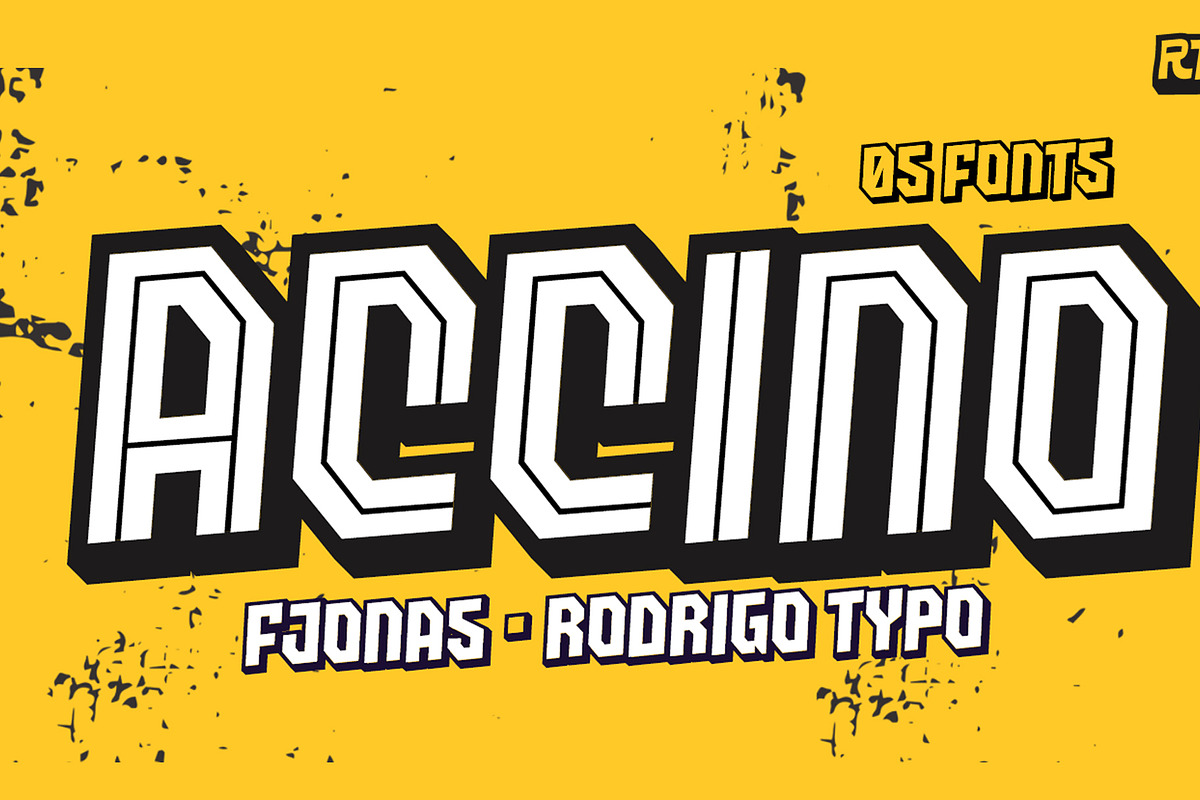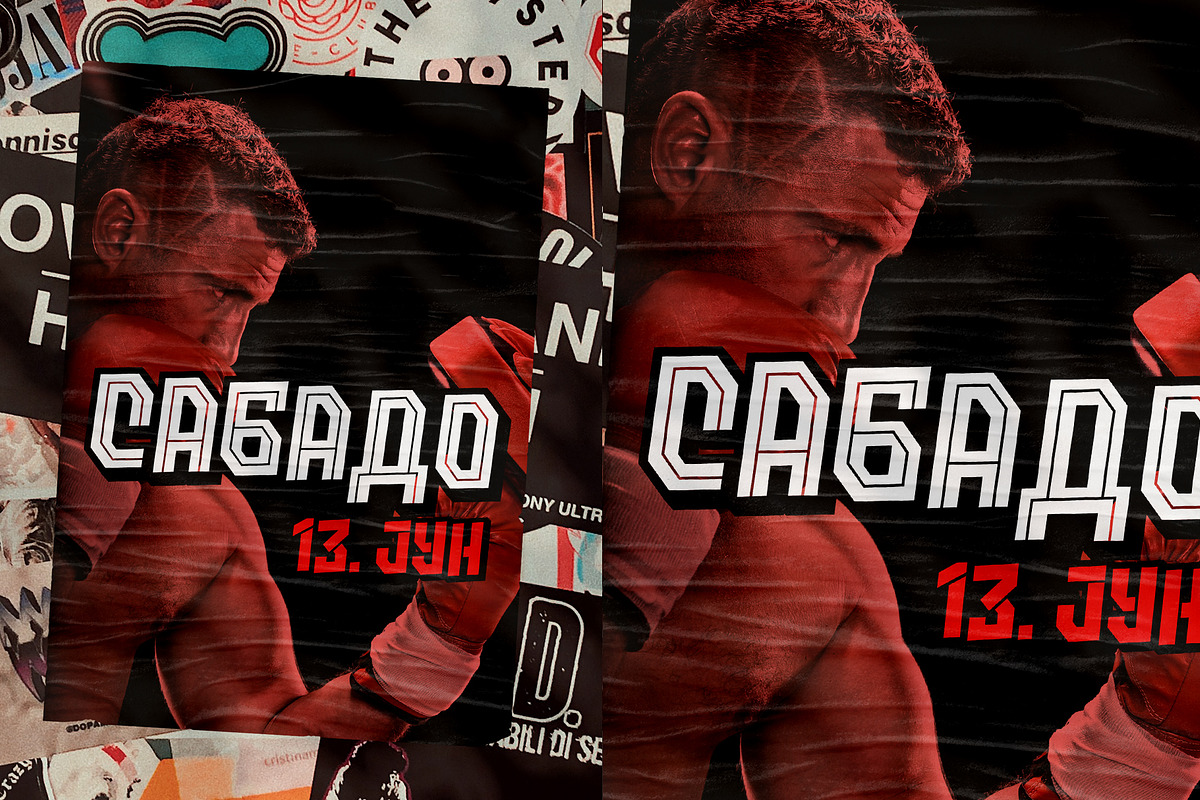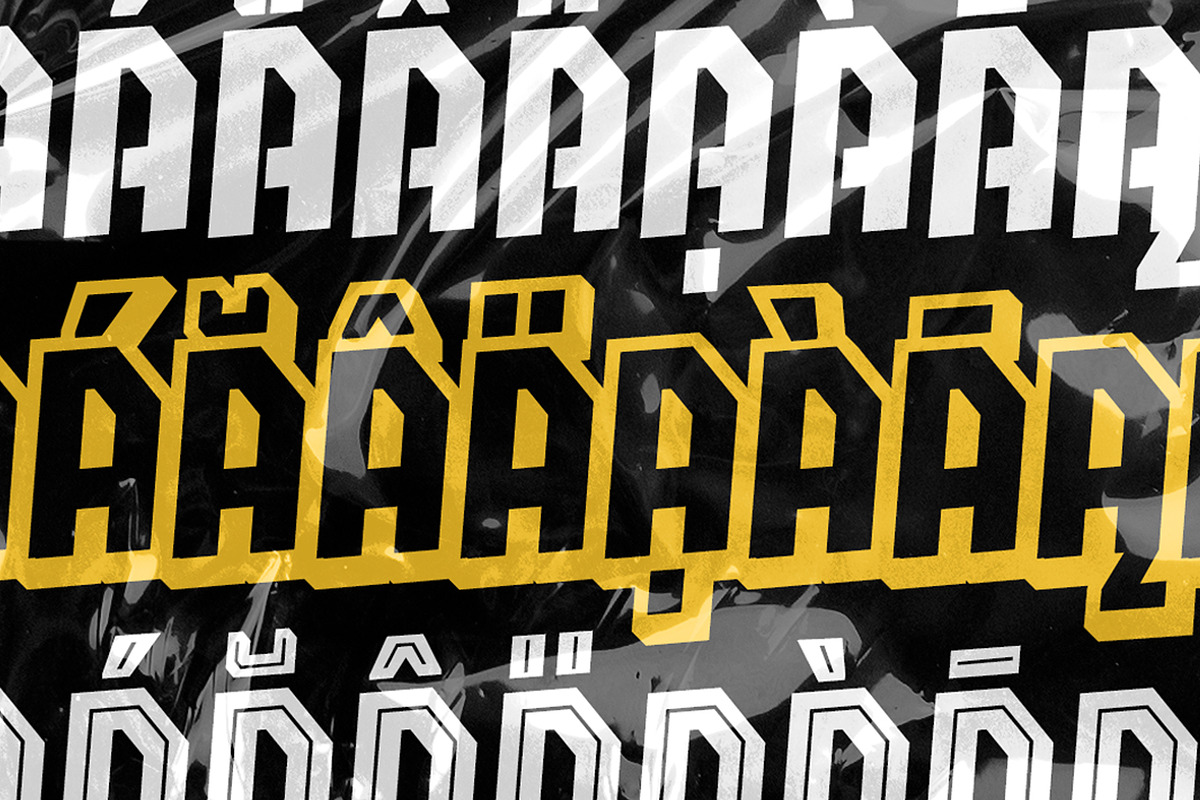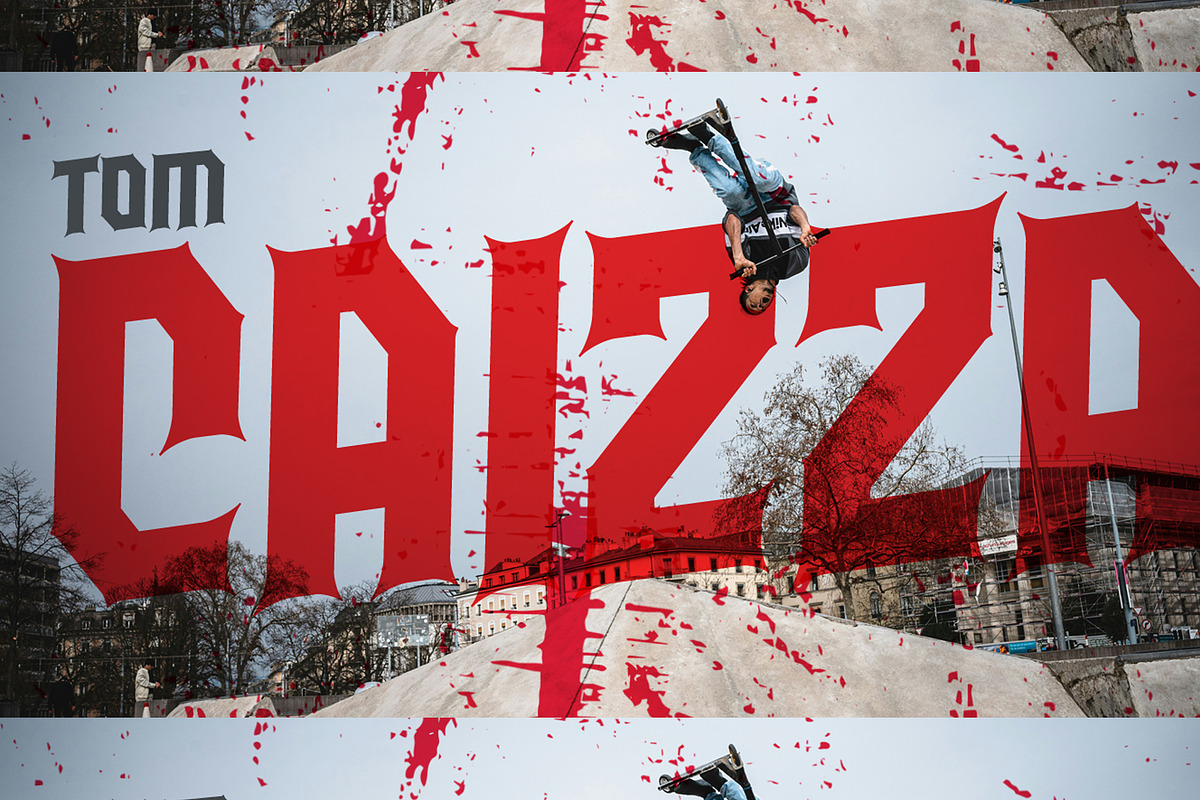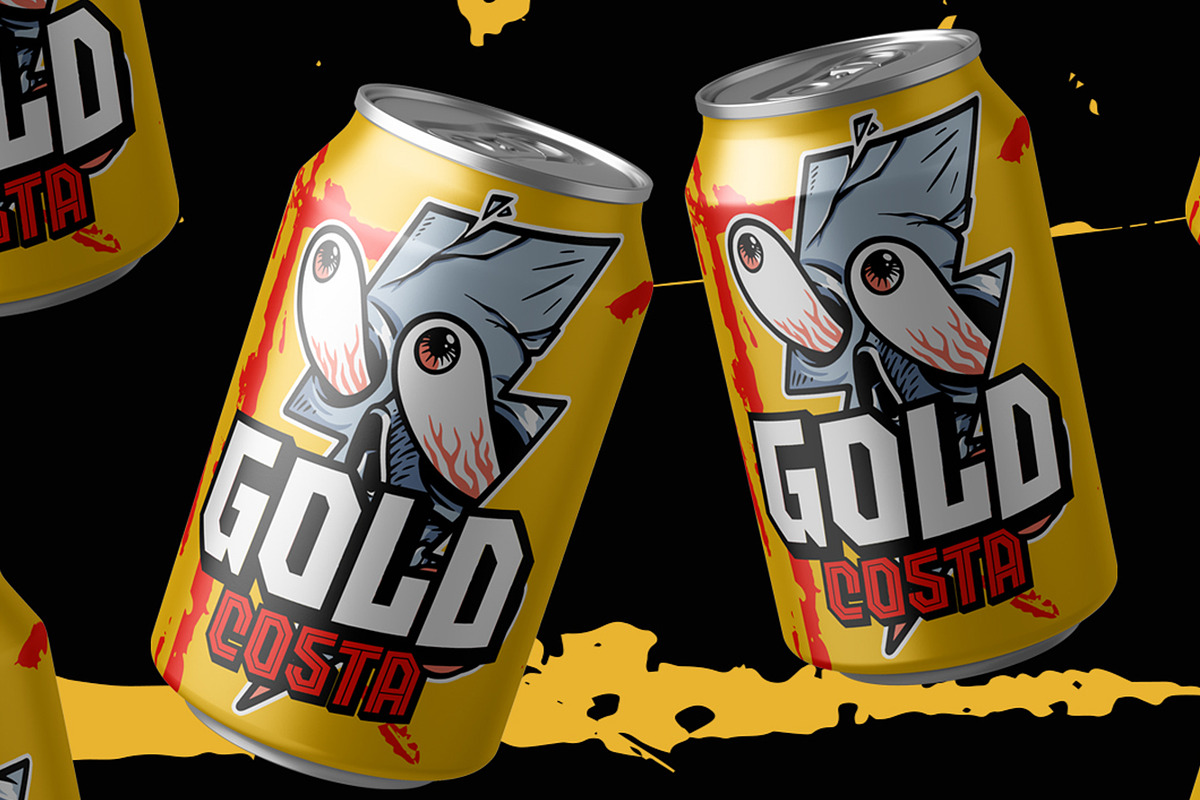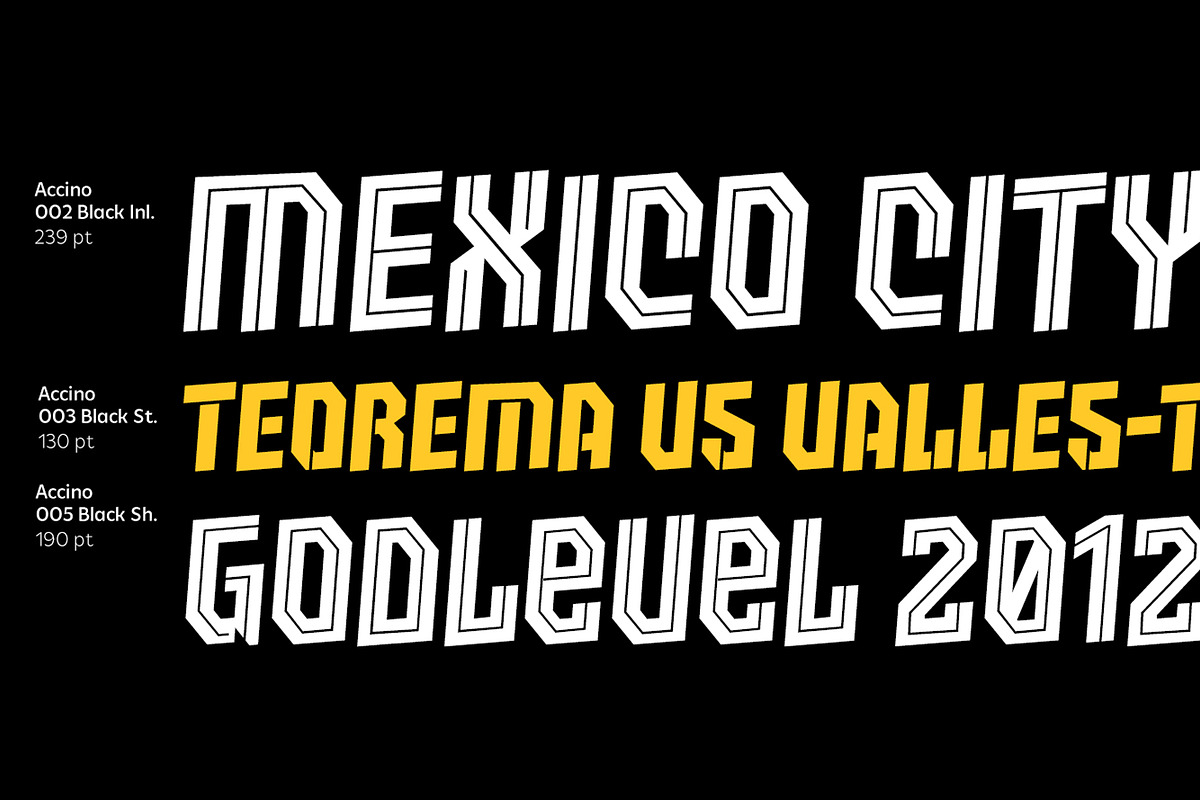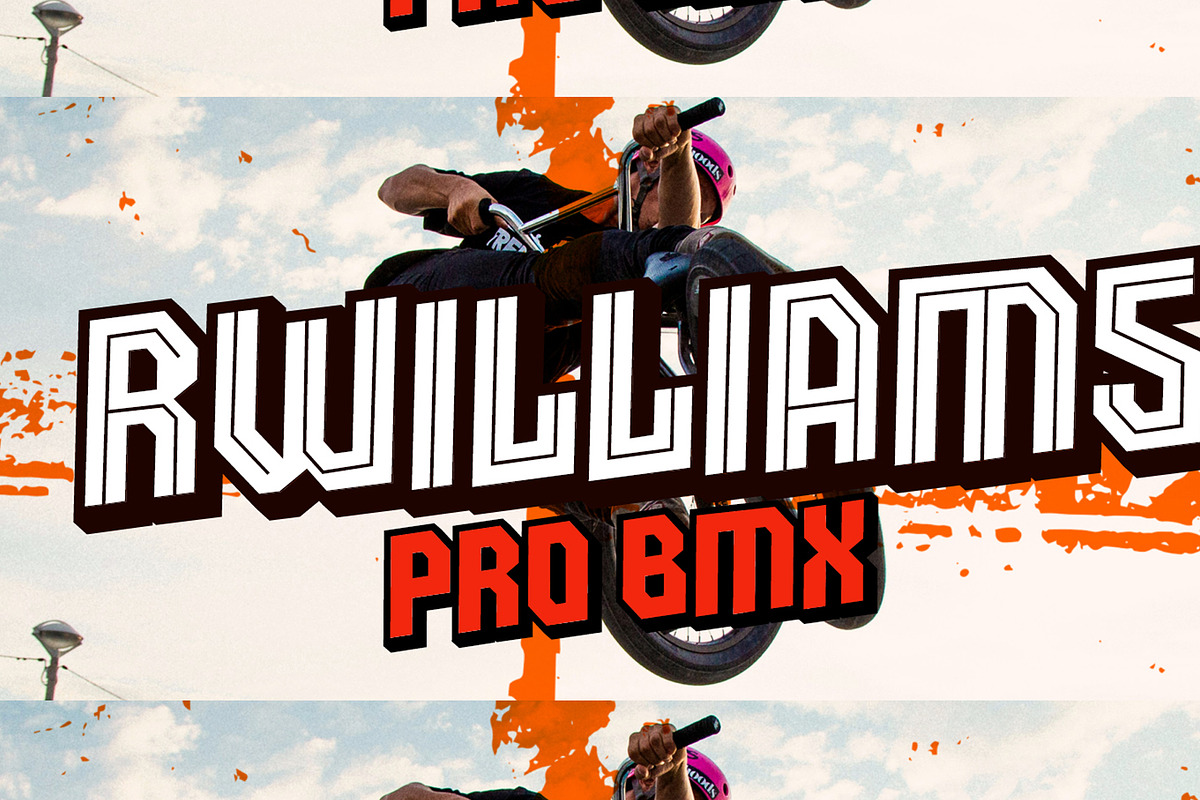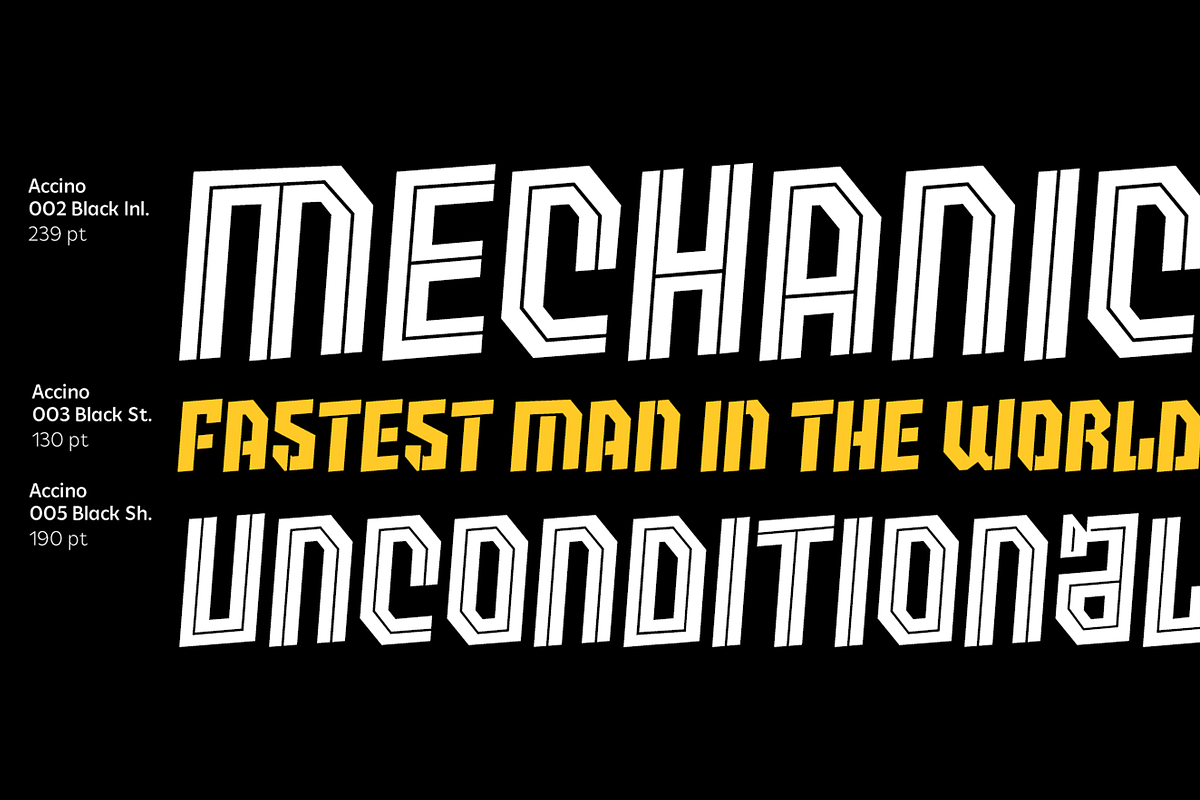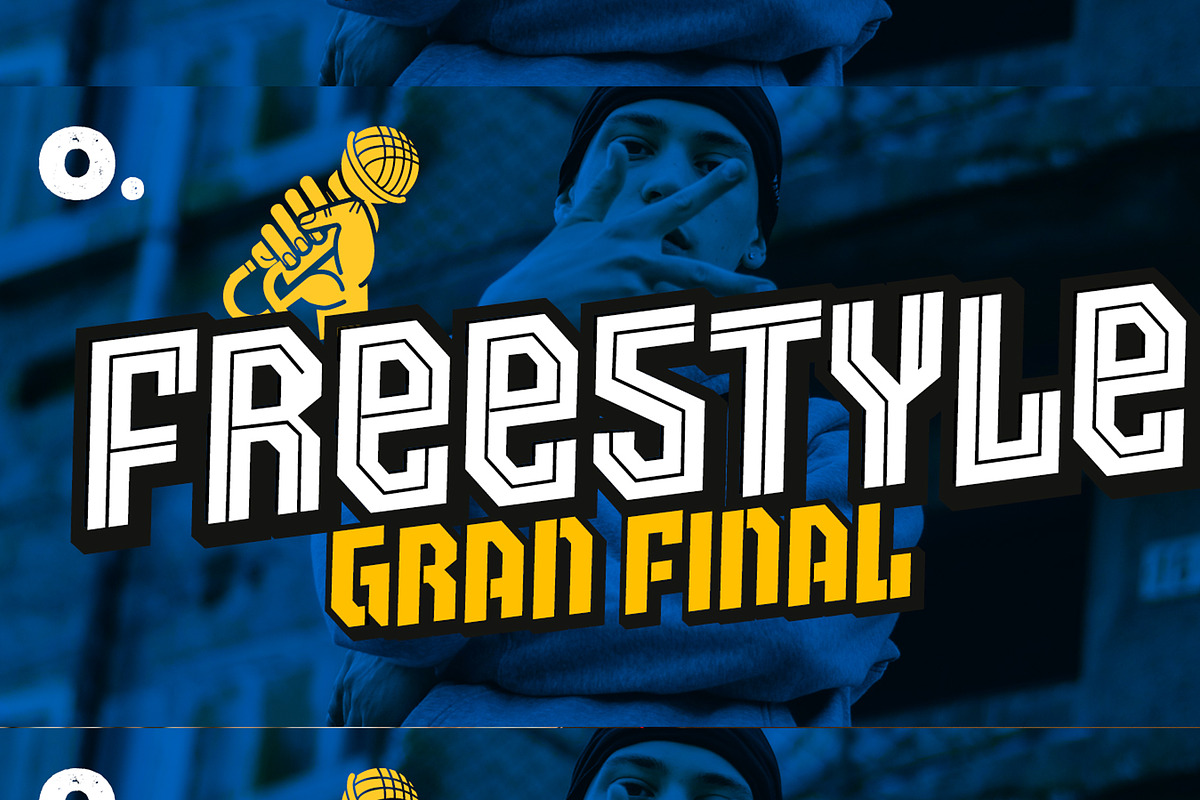
Accino / All Family + Cyrillic
Accino is a font family of 5 styles (Black, Black Inline, Stencil, Sharp and Shadow) and also contains the Cyrillic alphabet. It is perfect for titles with concepts about action, energy, strength.